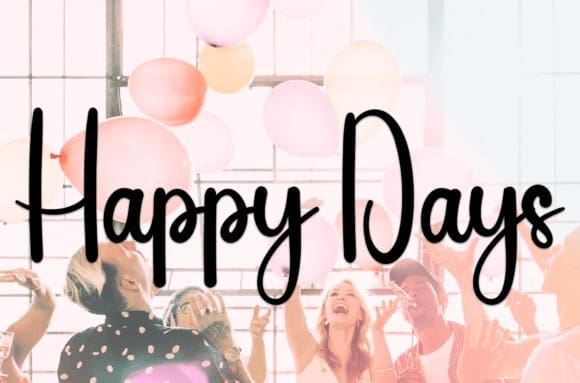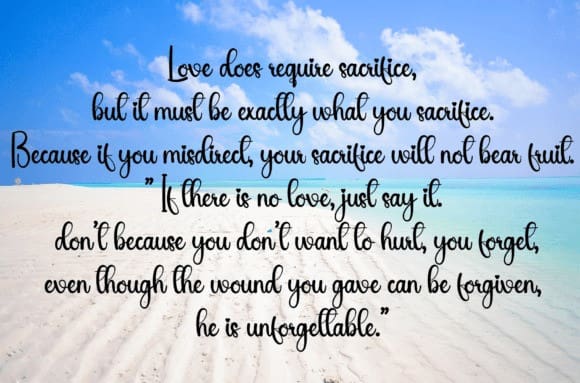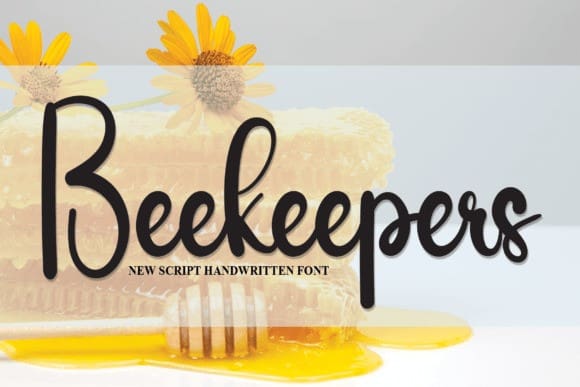
Beekeepers Script Font
Beekeepers Script Font is a sweet and friendly handwritten font. Cute and relaxed, this font is ideal for writing wedding invitations, cards, or any other design that might need a fun touch!